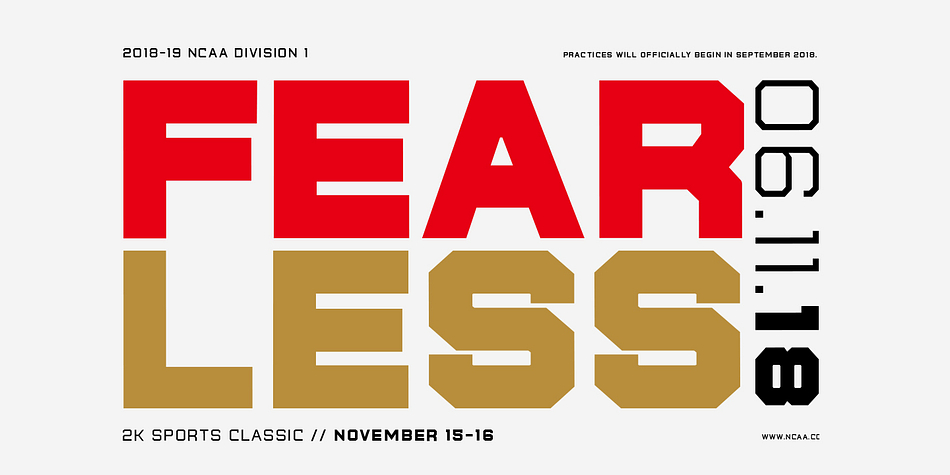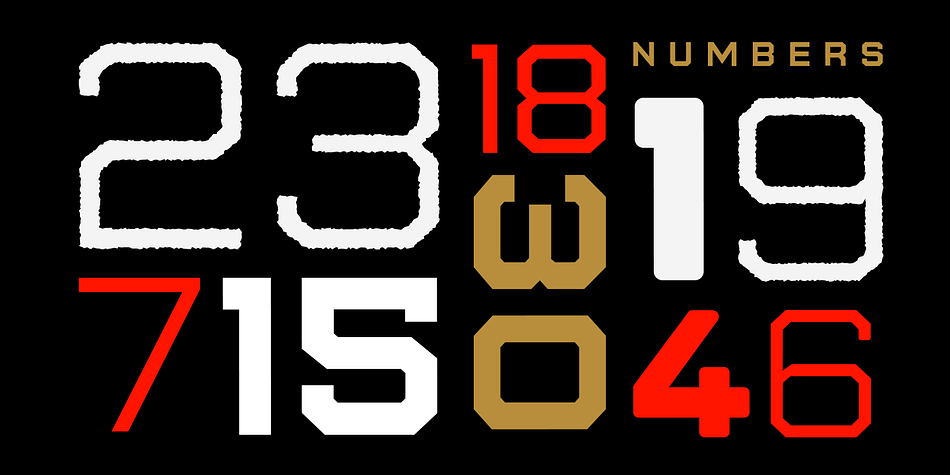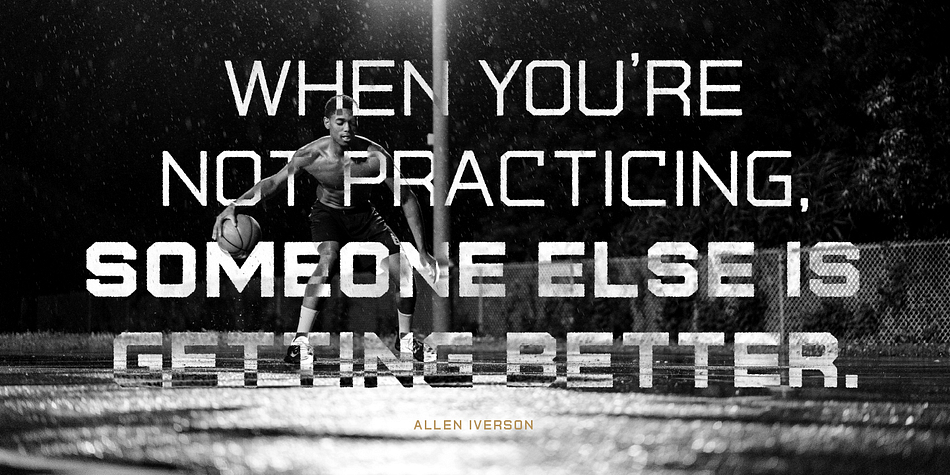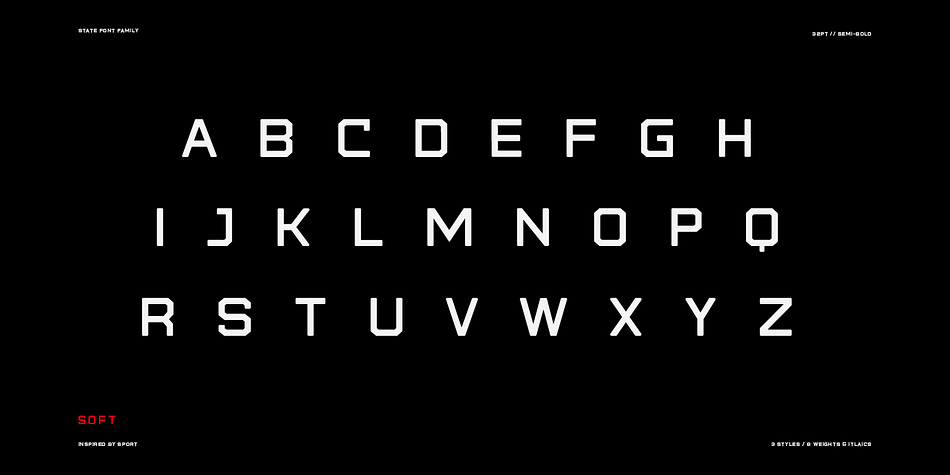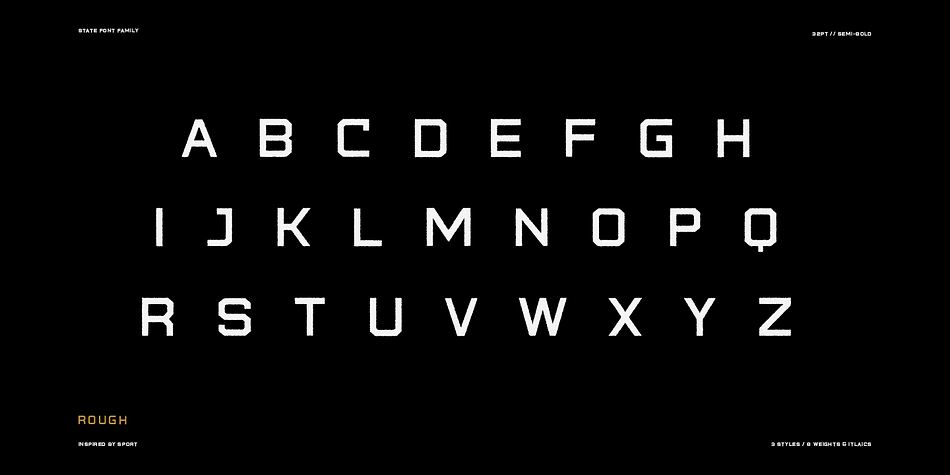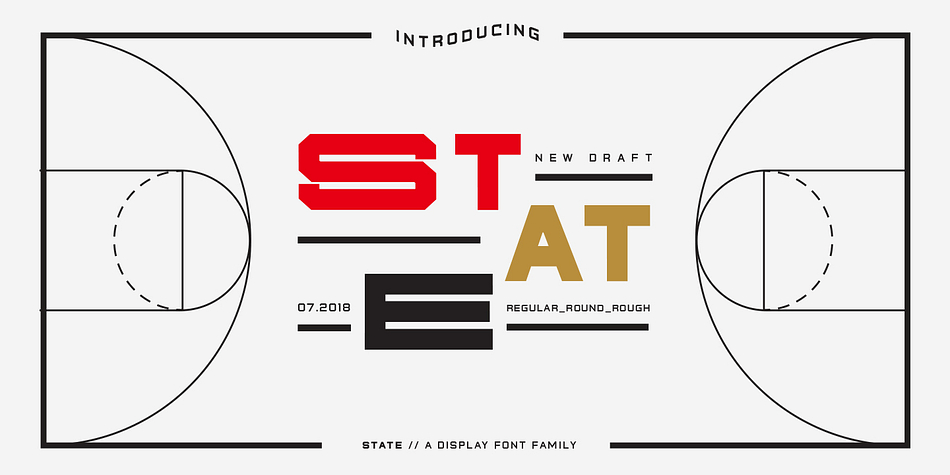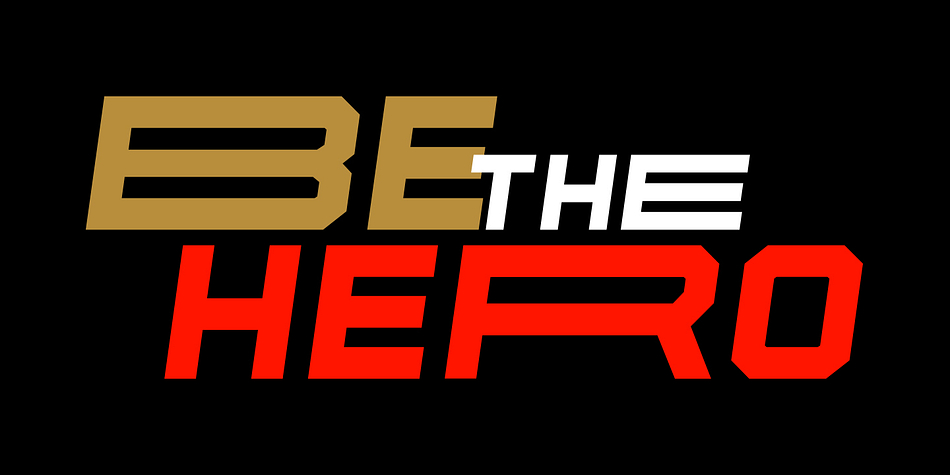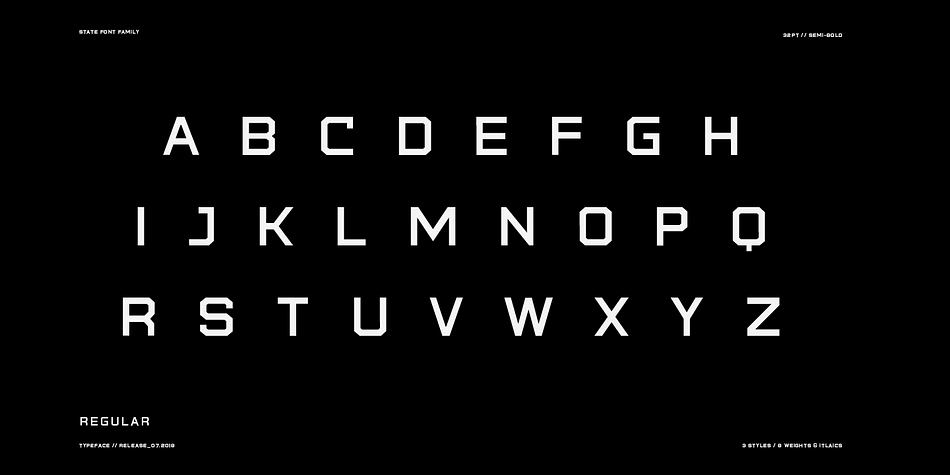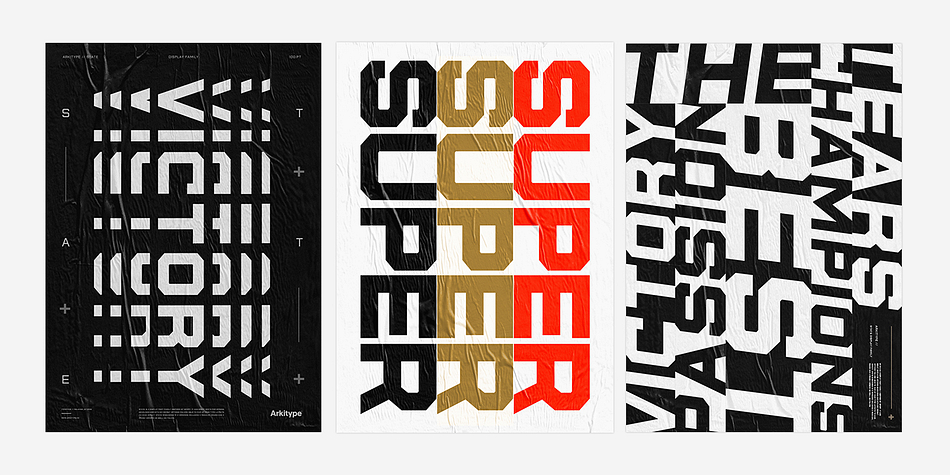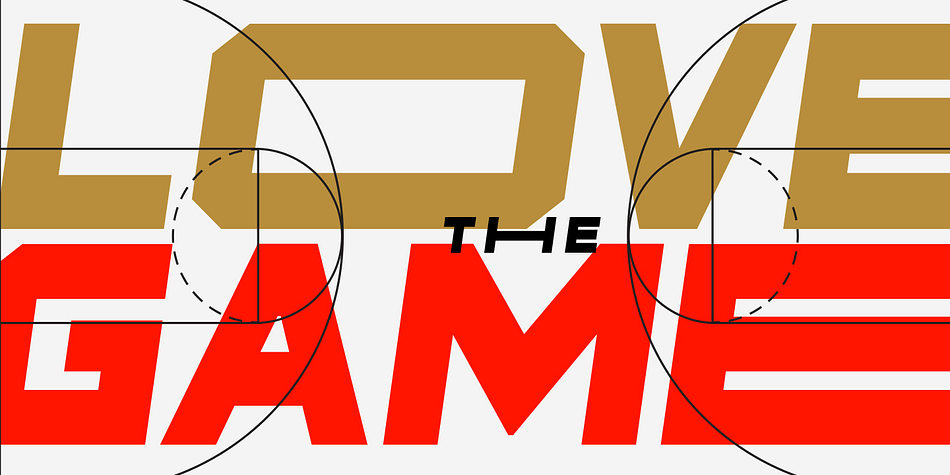
Designed by Andrew Footit, State Wide is a display sans font family. This typeface has forty-two styles and was published by Andrew Footit.
Say hello to State, this family is inspired by sports.
State Wide has been designed with a little extra width as well as some stylistic alternates to give your artwork some interesting variation. This family comes in 3 styles; Regular, Soft and a Rough version each with 7 weights and italics.
Choose state for print, online or television, it is versatile in weight and style to give your artwork the perfect delivery you need it to have.